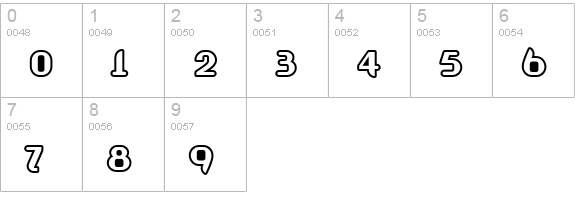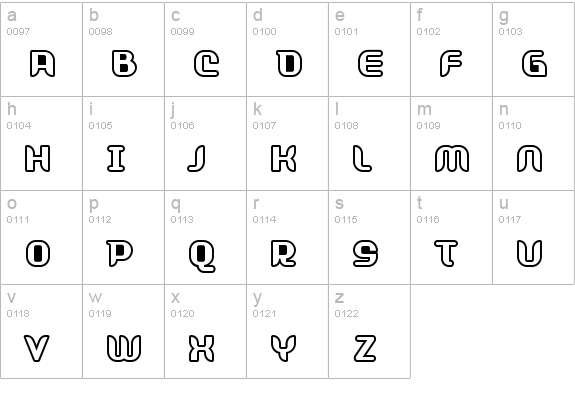
Introducing Shifty-Outline font, a stunning and versatile typeface that will add a touch of elegance and uniqueness to your designs. With its sleek and modern lines, this font is perfect for a variety of projects, from branding and logo design to packaging and headlines. Shifty-Outline font stands out with its distinctive outline style, giving your text a refreshing and eye-catching look. Its clean and precise lines create a sense of sophistication and professionalism, making it a great choice for both digital and print applications. But what makes Shifty-Outline font even more appealing is that it is available for free download at FontsMarket.com. Yes, you read that right - this amazing font can be yours at no cost! FontsMarket.com is a trusted source for high-quality fonts, and they are generously offering Shifty-Outline font for free, so you can elevate your designs without breaking the bank. Whether you're a professional designer or a casual enthusiast, Shifty-Outline font is a must-have in your font collection. Its versatility and elegance make it suitable for a wide range of projects, while its affordability makes it accessible to everyone. So why wait? Head over to FontsMarket.com and download Shifty-Outline font today. Unleash your creativity and give your designs that extra touch of sophistication with this remarkable typeface.